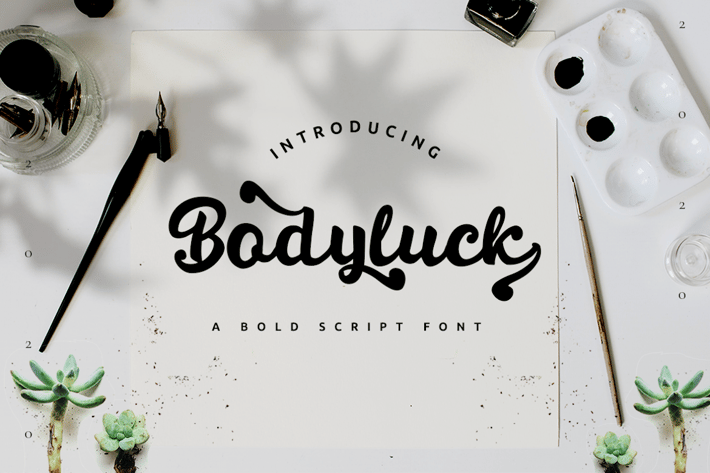
Bodyluck - Bold Script Font
Bodyluck Bold Script Font
Bodyluck Bold script is a modern hand lettering script. It's allowing you to create casual hand-made typography
in an instant.
Bodyluck Bold script perfect to use for any kind of design such as branding projects,
logo, brochures, business card, wedding designs, social media posts, advertisements, product packaging,
product designs, label, photography, watermark, invitation, brand company, stationery and any
projects that need handwriting taste.
+ Multilingual Support
+ with Regular style
+ with Swash